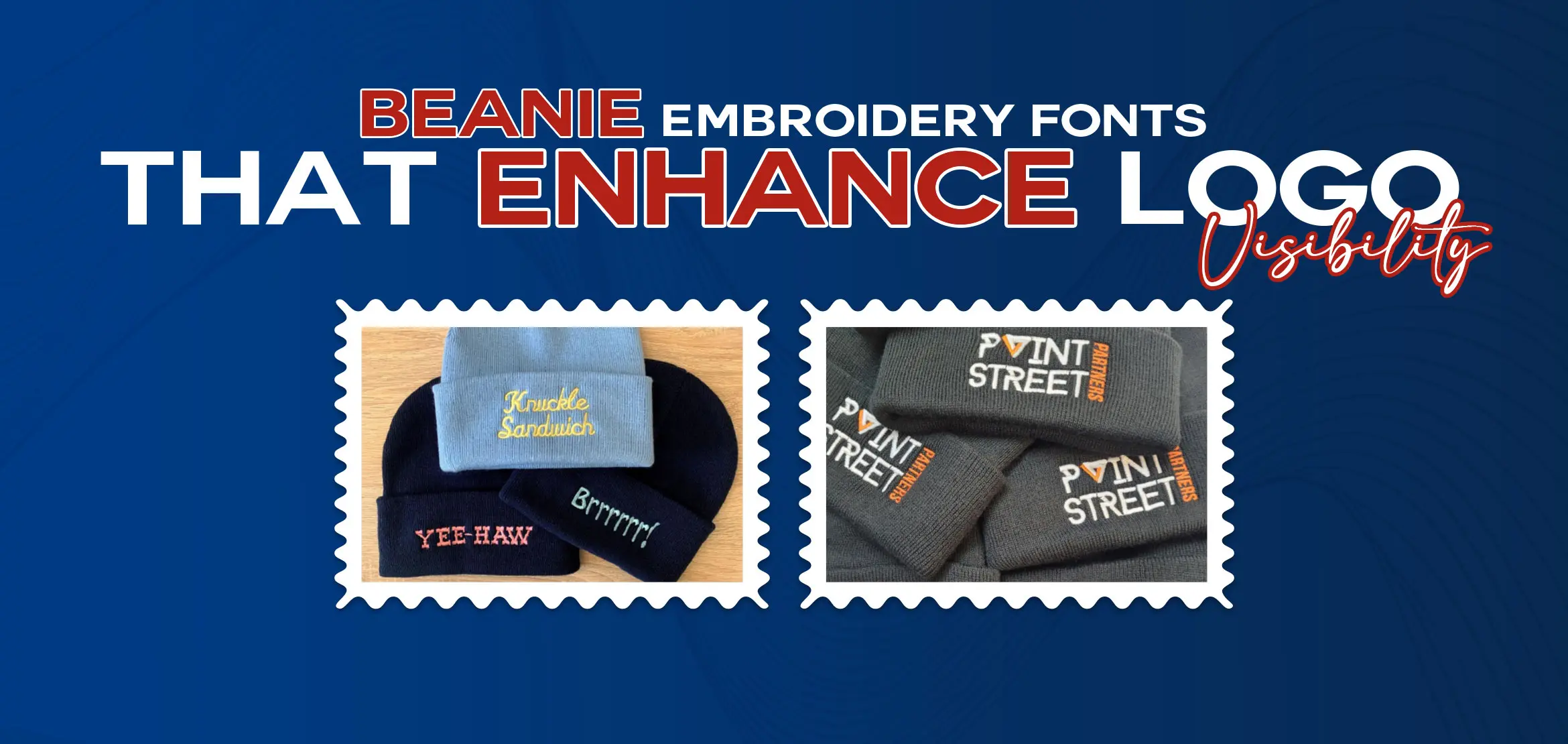
Beanie Embroidery Fonts That Enhance Logo Visibility
Everyone's favorite winter season is almost here and one of the most popular winter accessories people love to wear is the beanie. You know why people love beanies because they are warm, comfortable & look stylish. Instead of wearing a plain & simple beanie, imagine how eye-catching it would look if it carried an attractive embroidered logo. No matter if it is a company logo, a sports team logo or even a personal design, embroidery turns basic beanies into something unique, memorable & the best part is they are long lasting.
However, one thing that decides how good the logo will look is the font. The right embroidery font makes the logo easy to read, attractive and professional. That’s why choosing the right beanie embroidery fonts is so important.
Top Embroidery Fonts for Beanies That Enhance Logo Visibility
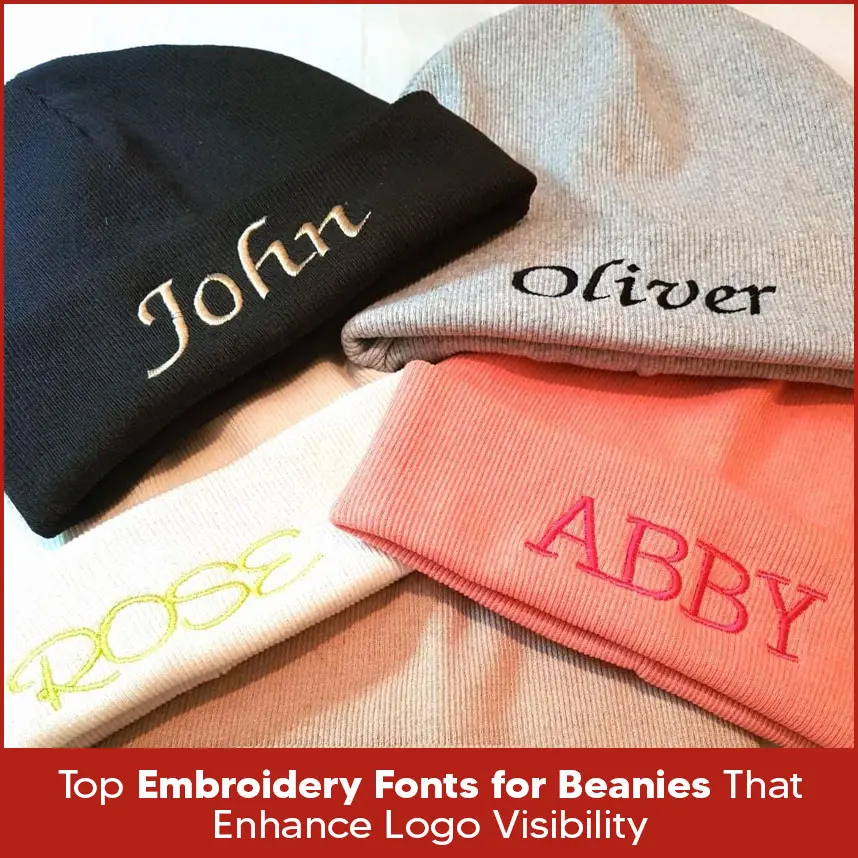
The font you pick changes the way your logo looks once it is stitched. Some fonts are simple and strong, while others may lose shape on fabric. Here are some top font options for beanies:
Block Fonts: Bold and thick, ideal for logos that should stand out. Sans-Serif Fonts: Clean and modern, simple to read on different fabrics. Serif Fonts: Traditional style, best for formal and classic branding. Script Fonts: Decorative and elegant but work better for larger logos where details can be stitched clearly. These fonts not only improve the look of the logo but also keep it visible and neat on the textured surface of a beanie. Many beanies have small embroidered logos, which need clear fonts to remain readable. Thin or complex fonts usually don’t work well. The best fonts for smaller logos include: Arial Rounded: Smooth and easy to stitch, good for compact designs. Verdana Bold: Letters stay clear even in smaller sizes. Impact: Thick strokes that stay visible on heavy fabrics. Use simple and bold fonts for small designs & make sure the logo remains sharp and easy to identify. Embroidered beanies are popular in many styles and industries. Some of the most common uses include: Sports Teams: Names or mascots with bold fonts to boost team spirit. Corporate Logos: Simple fonts for company branding on staff beanies. Streetwear and Fashion: Stylish scripts and bold fonts for trendy designs. Personal Gifts: Initials, names or small icons stitched with clean fonts. These embroidery ideas not only add a personal touch but also make the beanie more attractive and recognizable. For embroidery on beanies, bold fonts are usually the better choice. Thin fonts often lose clarity when stitched and can break on thick knit fabric. On the other hand, Bold fonts keep the design clear, strong and durable. Thin fonts may look neat in print but once stitched, they lose detail. Hence, if the goal is visibility, bold or medium-thick fonts are always the best option. Knitted fabric stretches, which can cause thin fonts to look broken or unclear. Choose bold fonts with thicker strokes and adjust stitch density during digitizing to keep the design clean. Most of the time small designs on beanies lose details if script or thin fonts are used. Stick to simple block or sans-serif fonts for small embroidery. If needed, increase the font size slightly for better visibility. Frequently washing or stretching can damage thin lettering. Select fonts with stronger outlines and use quality thread. Proper digitizing also helps improve durability. Beanies are not just winter essentials, they are also a great way to show logos and designs. The right beanie embroidery fonts can make a logo look sharp, professional and easy to recognize. Bold fonts, block styles and clean lettering work best, while script fonts are better for larger decorative logos. If you want your beanies to look professional with clear, stylish logos, proper digitizing is just as important as the font itself. Digitizing USA provides affordable embroidery digitizing services with a fast turnaroundof 2 to 6 hours but if the design is complicated, it will exceed 12 hours. We make it simple to turn plain beanies into unique & eye-catching pieces. This winter, give your beanies a fresh & trending look with the right fonts and expert digitizing. Get in touch with Digitizing USA today and let your logo stand out with perfect embroidery.Best Embroidery Fonts for Small Logos on Beanies
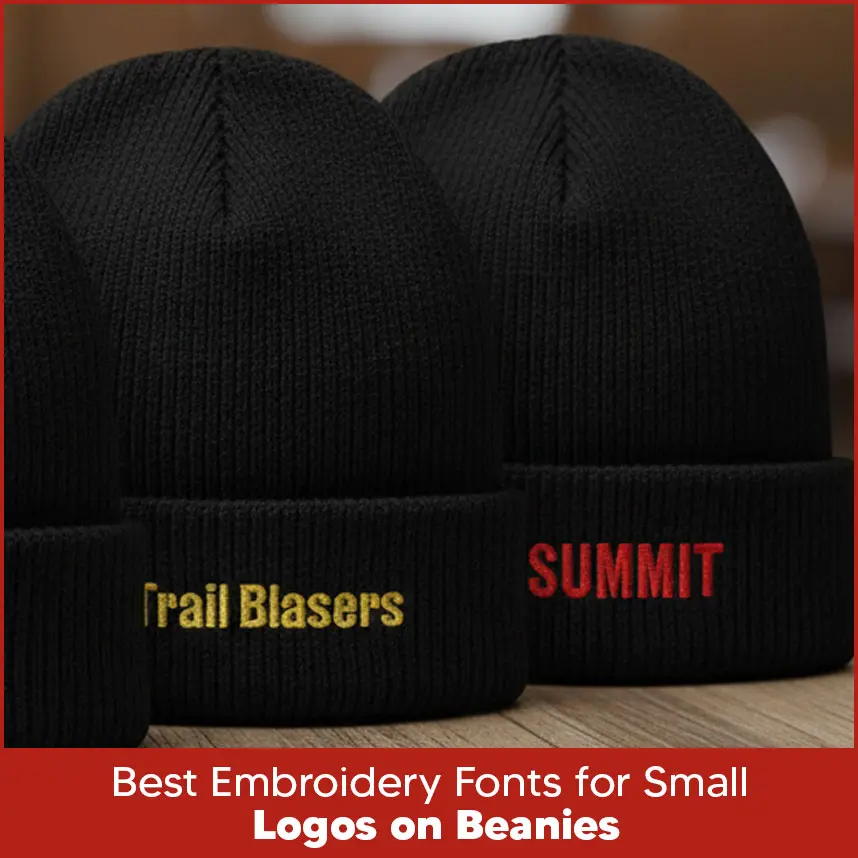
Popular Beanie Logo Embroidery Ideas
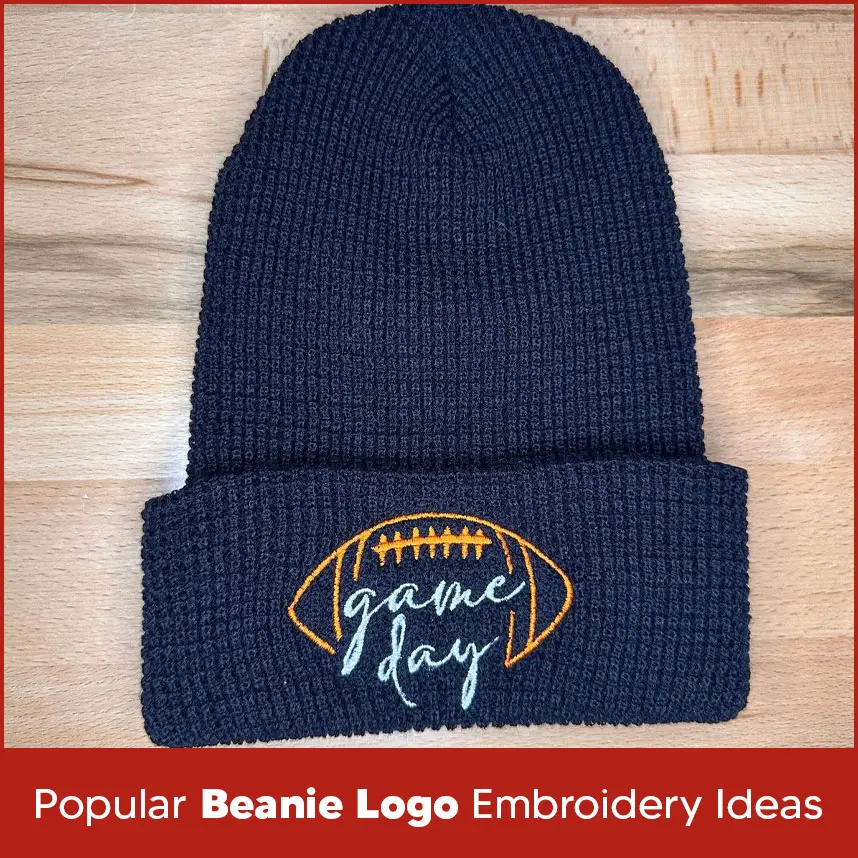
Which Works Better on Beanies? Bold or Thin Fonts
Common Challenges in Beanie Embroidery Fonts and How to Solve Them
1. Problem: Fonts Losing Clarity on Knit Fabric
Solution
2. Problem: Small Fonts Becoming Hard to Read
Solution
3. Problem: Fonts Distorting After Washing
Solution
Summary